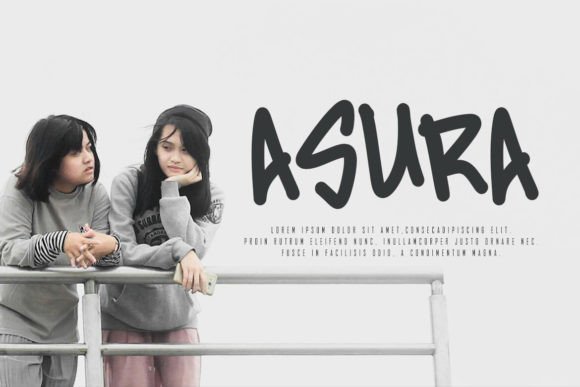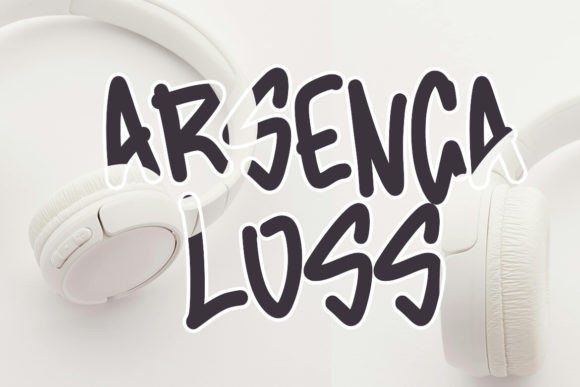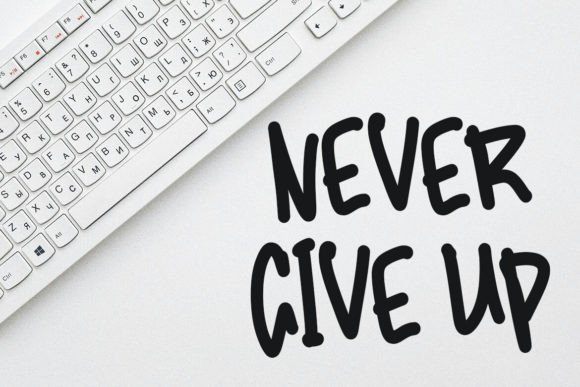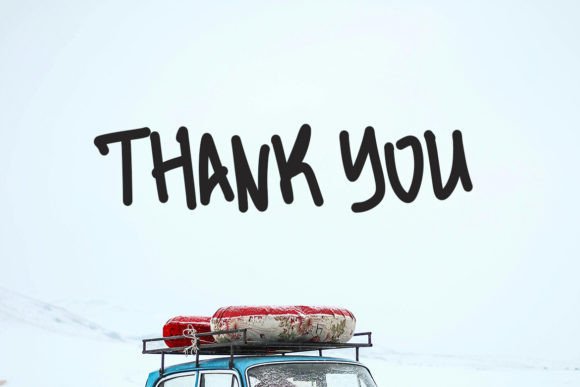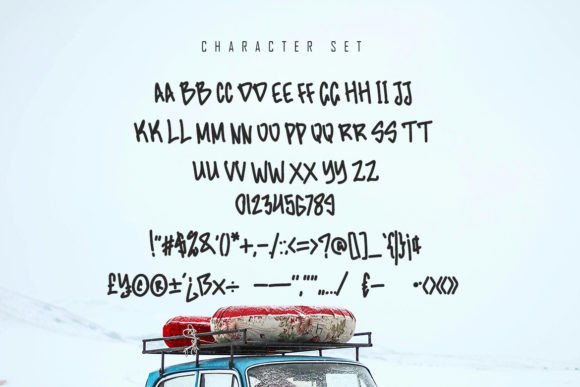
Introducing Barsura Font: The Perfect Handwritten Font for Fun Projects
Are you a designer or crafter looking for a unique and playful font to add a personal touch to your projects? Look no further than Barsura Font, a charming handwritten font that’s perfect for fun and creative endeavors. In this article, we’ll dive into the world of Barsura Font, exploring its features, benefits, and uses, as well as provide tips on how to make the most of this delightful font.
What is Barsura Font?
Barsura Font is a beautiful handwritten font that’s designed to bring a smile to your face. With its playful and carefree vibe, this font is ideal for projects that require a touch of whimsy and fun. Whether you’re working on a children’s party invitation, a cute quote, or a craft project, Barsura Font is the perfect choice.
Features of Barsura Font
So, what makes Barsura Font so special? Here are just a few of its standout features:
- Handwritten charm: Barsura Font has a genuine handwritten feel that’s perfect for adding a personal touch to your projects.
- Playful and fun: This font is designed to be fun and playful, making it ideal for projects that require a lighthearted touch.
- Easy to read: Despite its playful nature, Barsura Font is easy to read and understand, making it perfect for use in a variety of contexts.
- Versatile: Whether you’re working on a digital project or a print project, Barsura Font is versatile enough to adapt to any style or format.
Benefits of Using Barsura Font
So, why should you choose Barsura Font for your next project? Here are just a few benefits of using this delightful font:
- Adds a personal touch: With its handwritten charm, Barsura Font adds a personal touch to your projects that’s hard to replicate with other fonts.
- Creates a fun and playful vibe: This font is designed to create a fun and playful vibe that’s perfect for projects that require a lighthearted touch.
- Easy to use: Barsura Font is easy to use and can be easily integrated into a variety of design software and platforms.
Uses for Barsura Font
So, what can you use Barsura Font for? The possibilities are endless! Here are just a few ideas to get you started:
- Children’s party invitations: Create fun and playful invitations for kids’ parties with Barsura Font.
- Cute quotes and sayings: Add a touch of whimsy to your quotes and sayings with Barsura Font.
- Craft projects: Use Barsura Font to add a personal touch to your craft projects, such as handmade cards, gift tags, and more.
- Social media graphics: Create fun and engaging social media graphics with Barsura Font.
Tips for Using Barsura Font
Here are a few tips for using Barsura Font to get the most out of this delightful font:
- Experiment with different sizes and colors: Play around with different sizes and colors to find the perfect combination for your project.
- Pair with other fonts: Try pairing Barsura Font with other fonts to create a unique and interesting contrast.
- Use for headlines and titles: Use Barsura Font for headlines and titles to add a touch of whimsy and fun to your project.